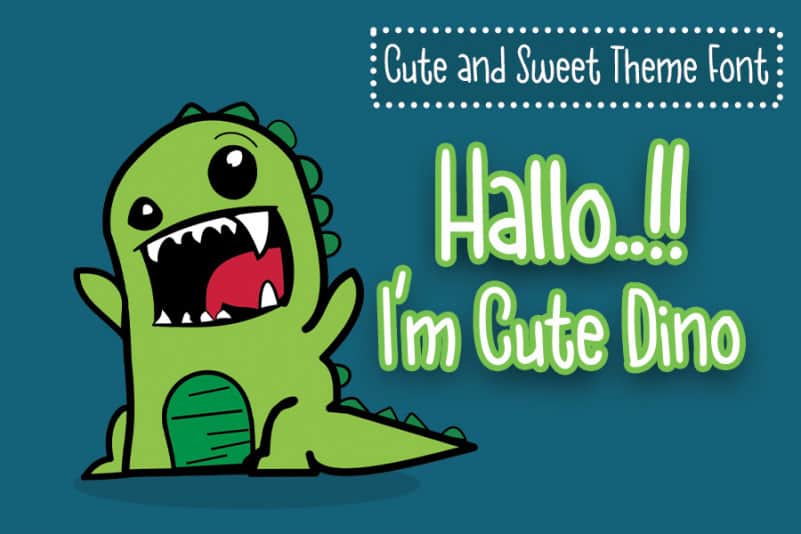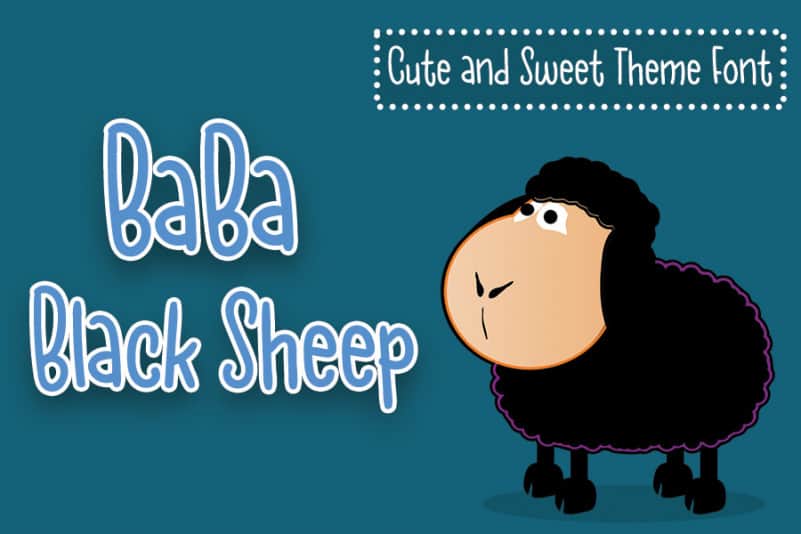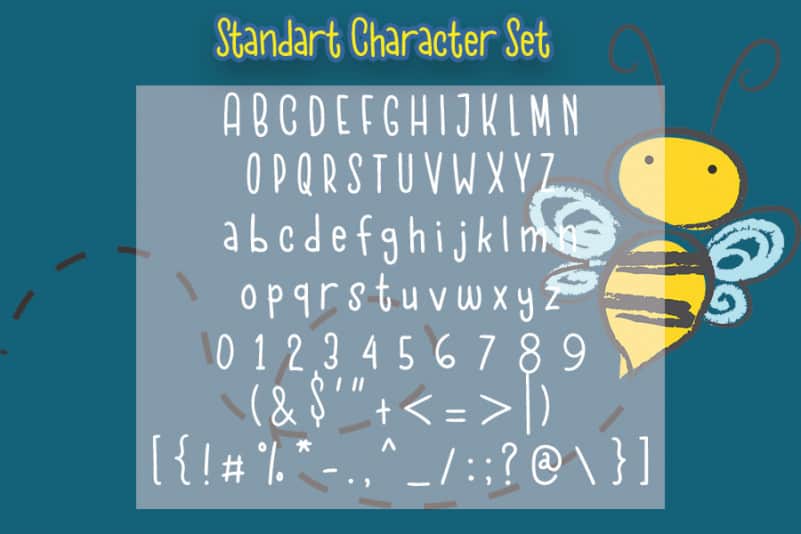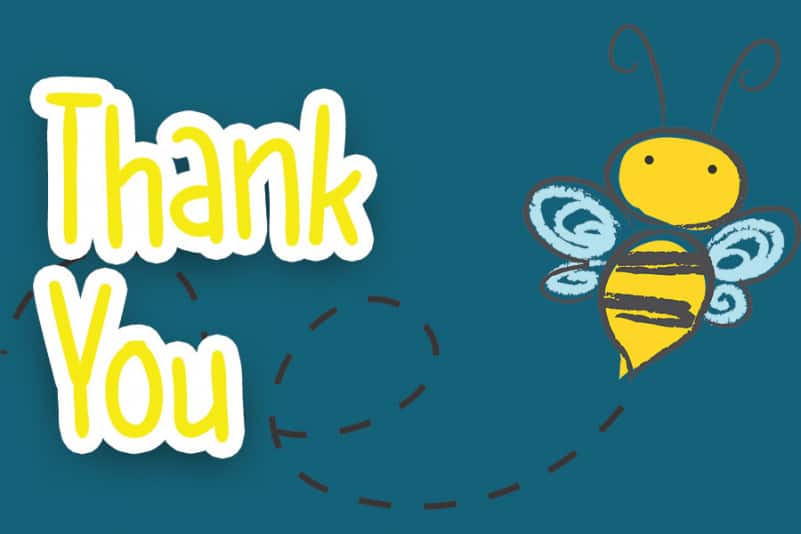
Sweet Ball Display Font
Sweet Ball Display Font is a cute and childish script font. It embodies playfulness and authenticity and is the perfect choice for any project that requires a joyful touch.
Erik Studio